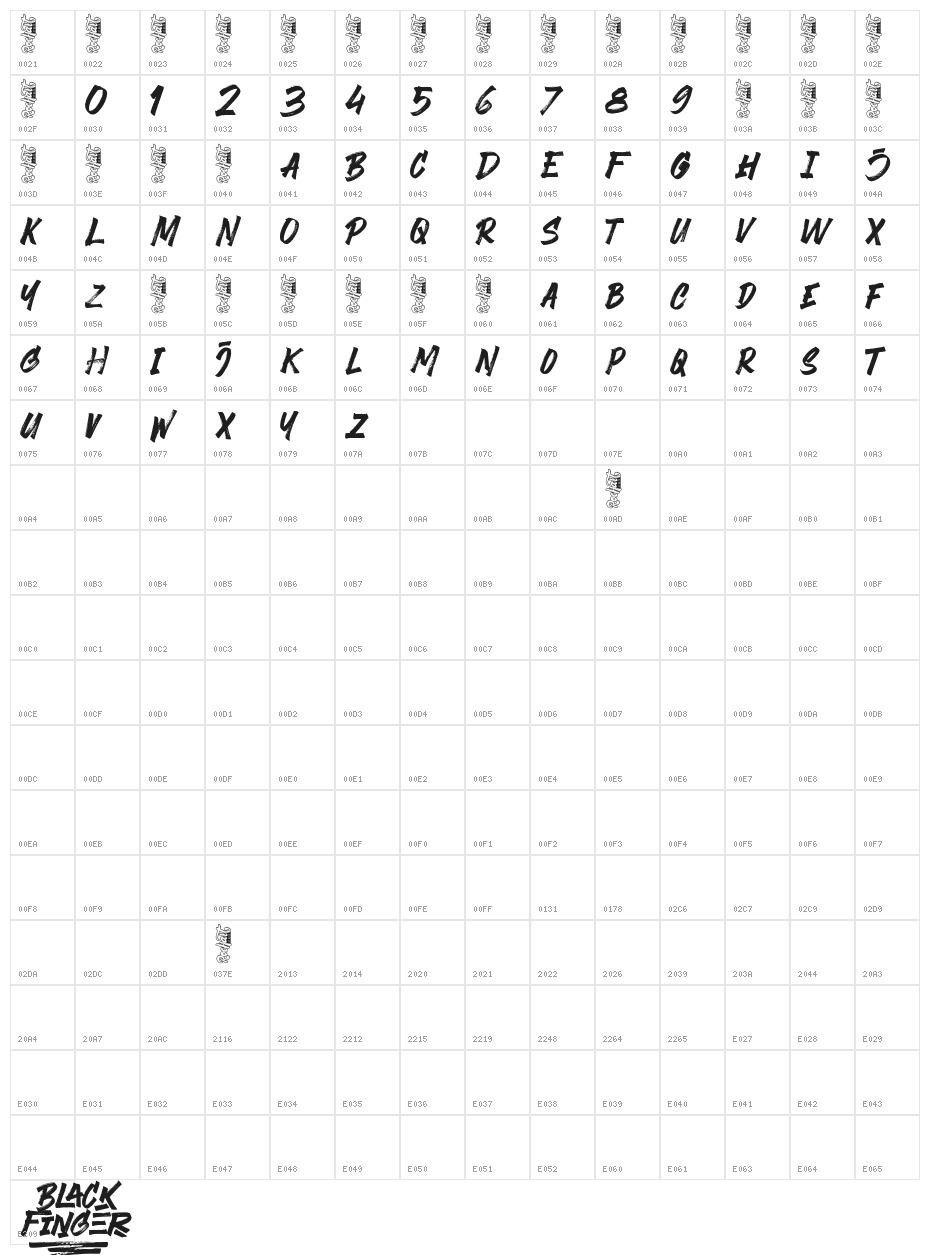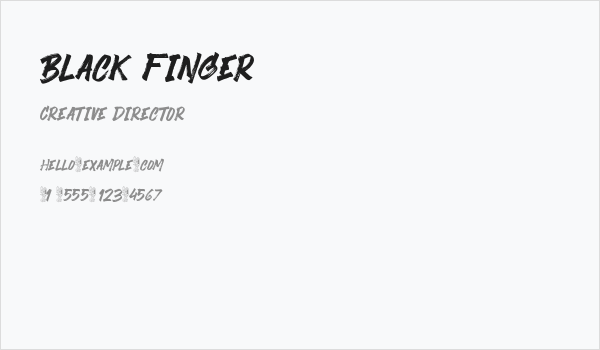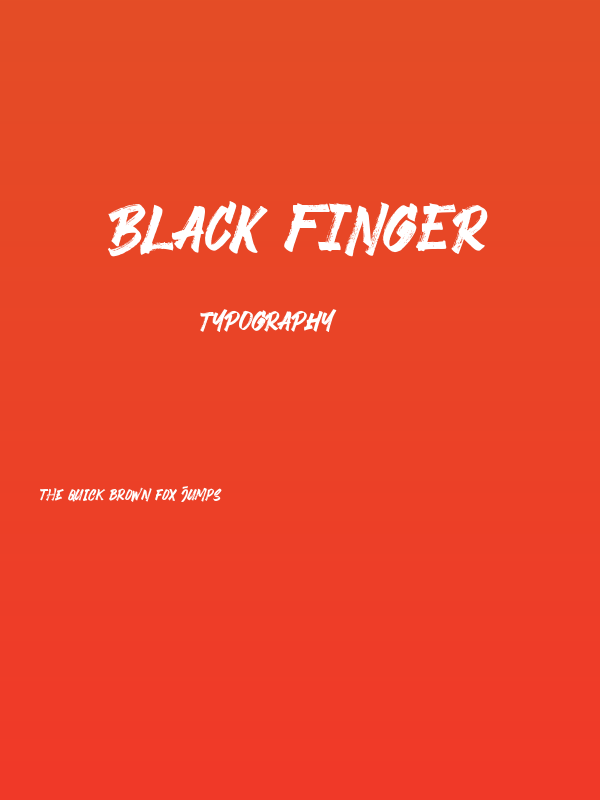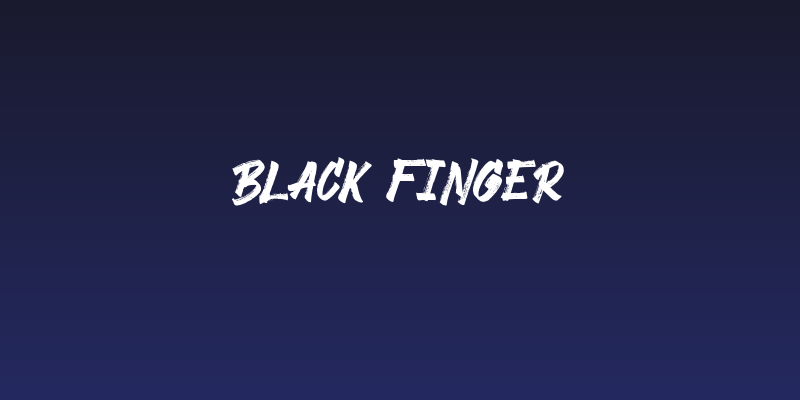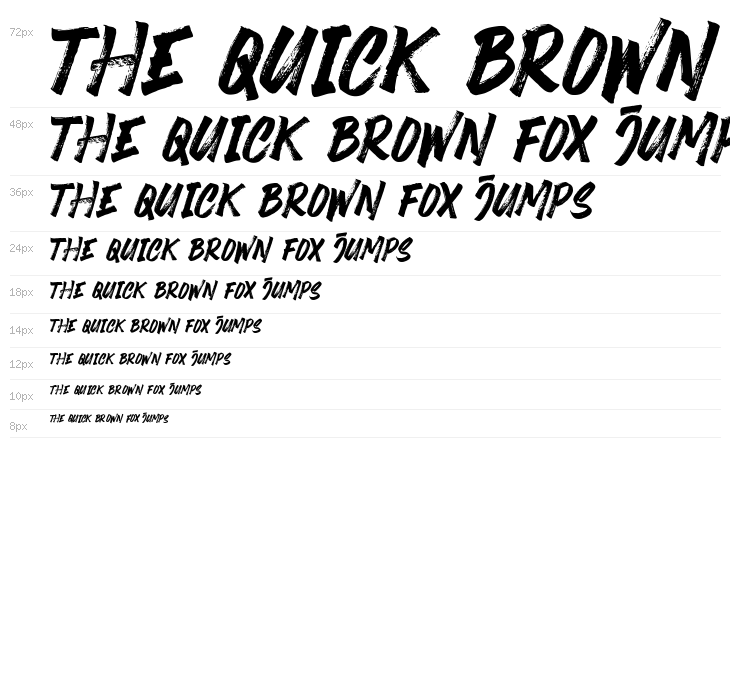
Black Finger Font
Black Finger Description
This font features a bold, brush-like texture with a dynamic and energetic style. The strokes are uneven, giving it a hand-painted appearance that adds a sense of movement and flair. The uppercase and lowercase letters maintain a consistent style, with a slight slant that enhances its casual and informal look. The numbers follow the same aesthetic, ensuring uniformity across all characters. The special characters are creatively integrated, maintaining the overall artistic feel. This font is ideal for projects that require a bold and expressive touch, such as posters, branding, and creative designs.
| Proposed Projects | Ideal for posters, branding, creative designs, and any project needing a bold, expressive touch. |